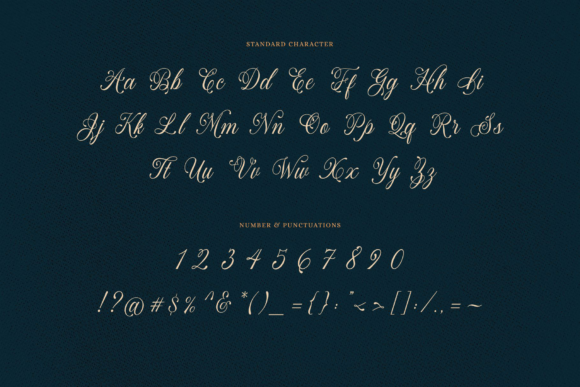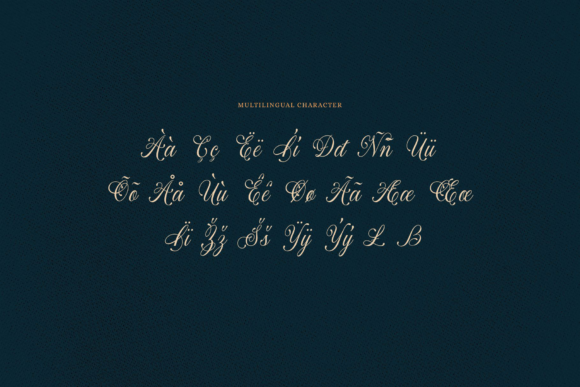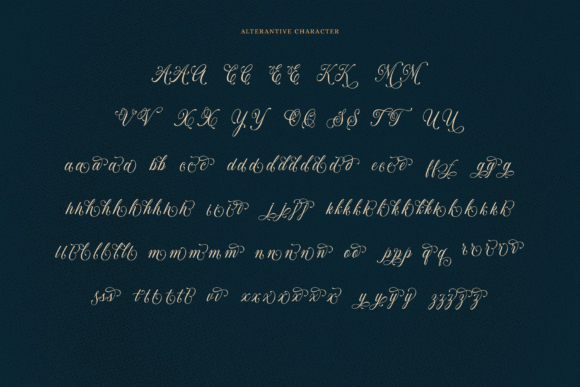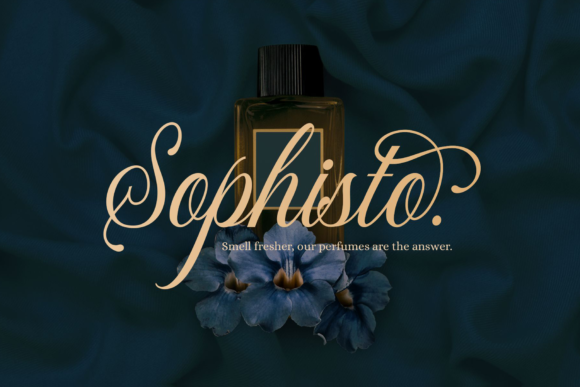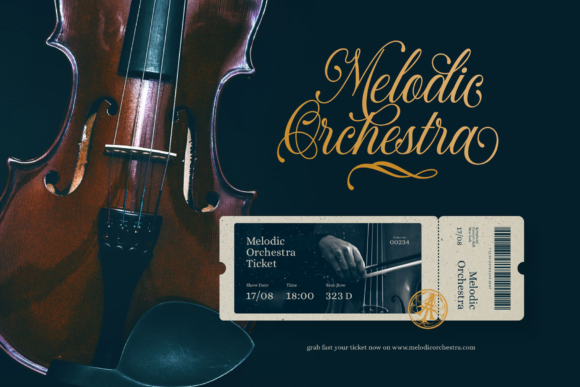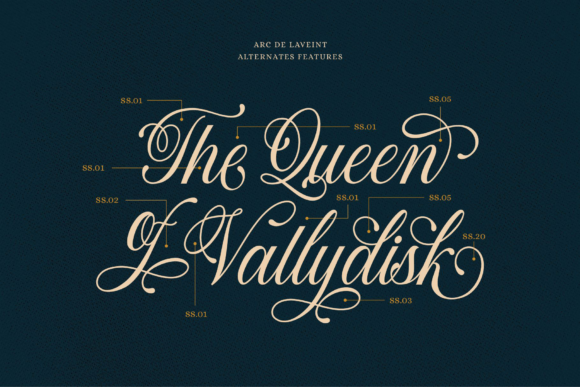
Arc De Laveint Font
About Arc De Laveint Font
Arc De Laveint is an equally sophisticated and flowing handwritten font that’s great for delivering any message with confidence, authenticity and elegance. It will elevate a wide range of crafting ideas, from cards, to branding, labels and much more.